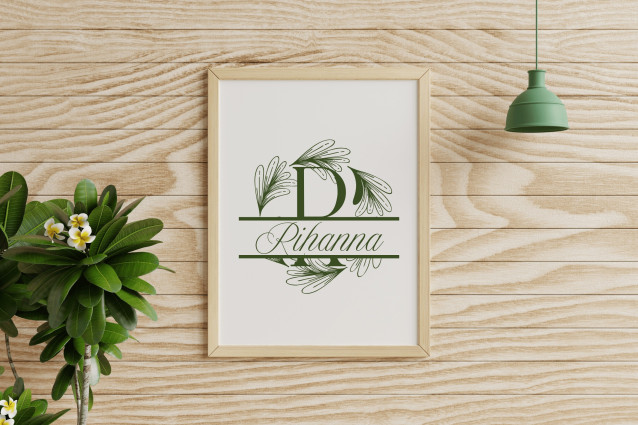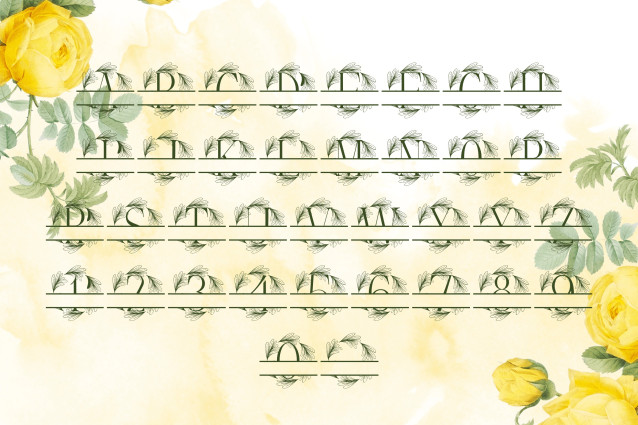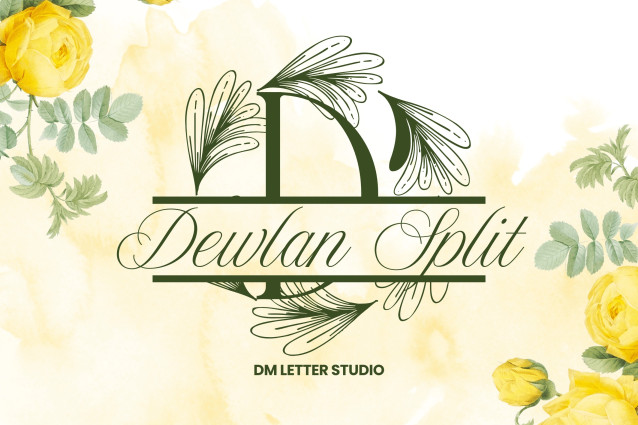
Dewlan Split Font
Dewlan Split Font is an elegant serif split monogram font designed for customization. Each uppercase letter features a clean horizontal divide, perfect for inserting names or personalized text, while graceful leaf accents add a natural, artisanal feel. Ideal for Cricut crafts, wedding decor, and elevated branding.